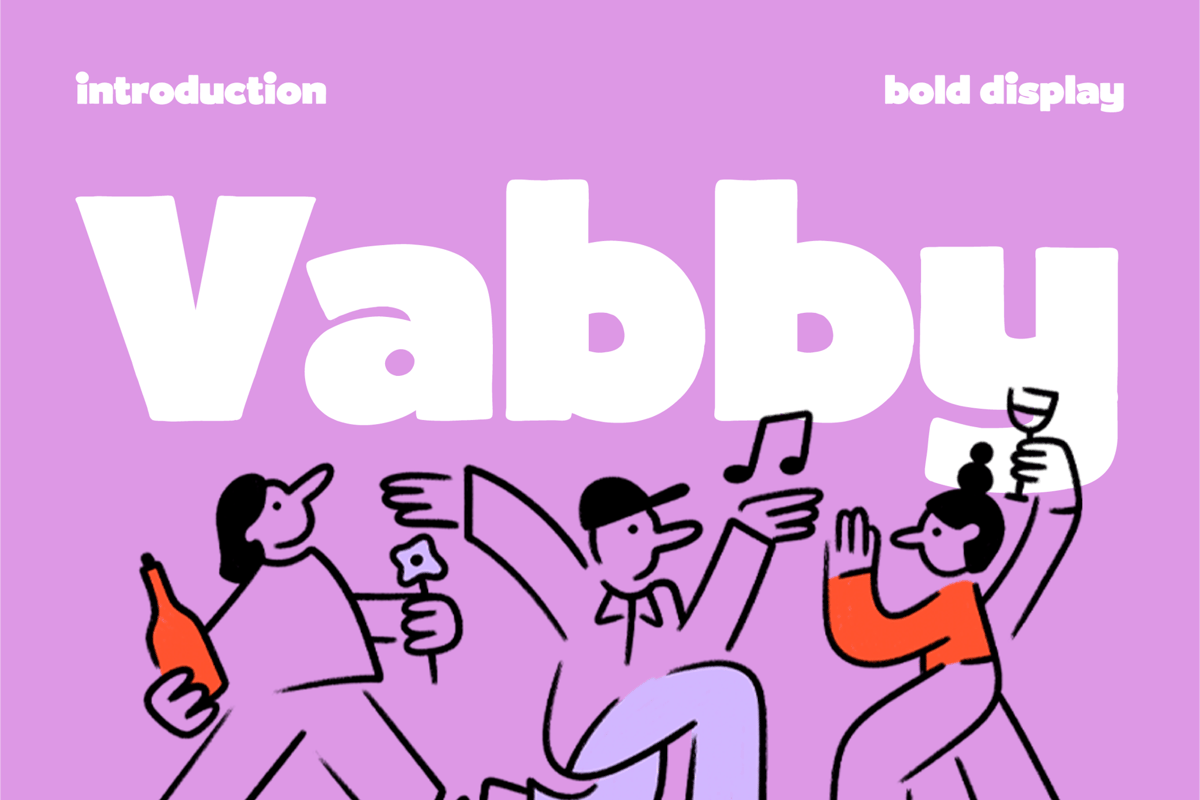
Vabby – Food Font
Meet Vabby – the bold, rounded display font that brings confident personality to your food and beverage branding projects. This modern typeface combines soft curves with chunky proportions and friendly letterforms to deliver an approachable yet powerful visual impact. Whether you're designing for digital platforms or print media, Vabby's strong readability and playful character make it the perfect choice for brands wanting to appear bold, contemporary, and welcoming simultaneously. Package inclu...